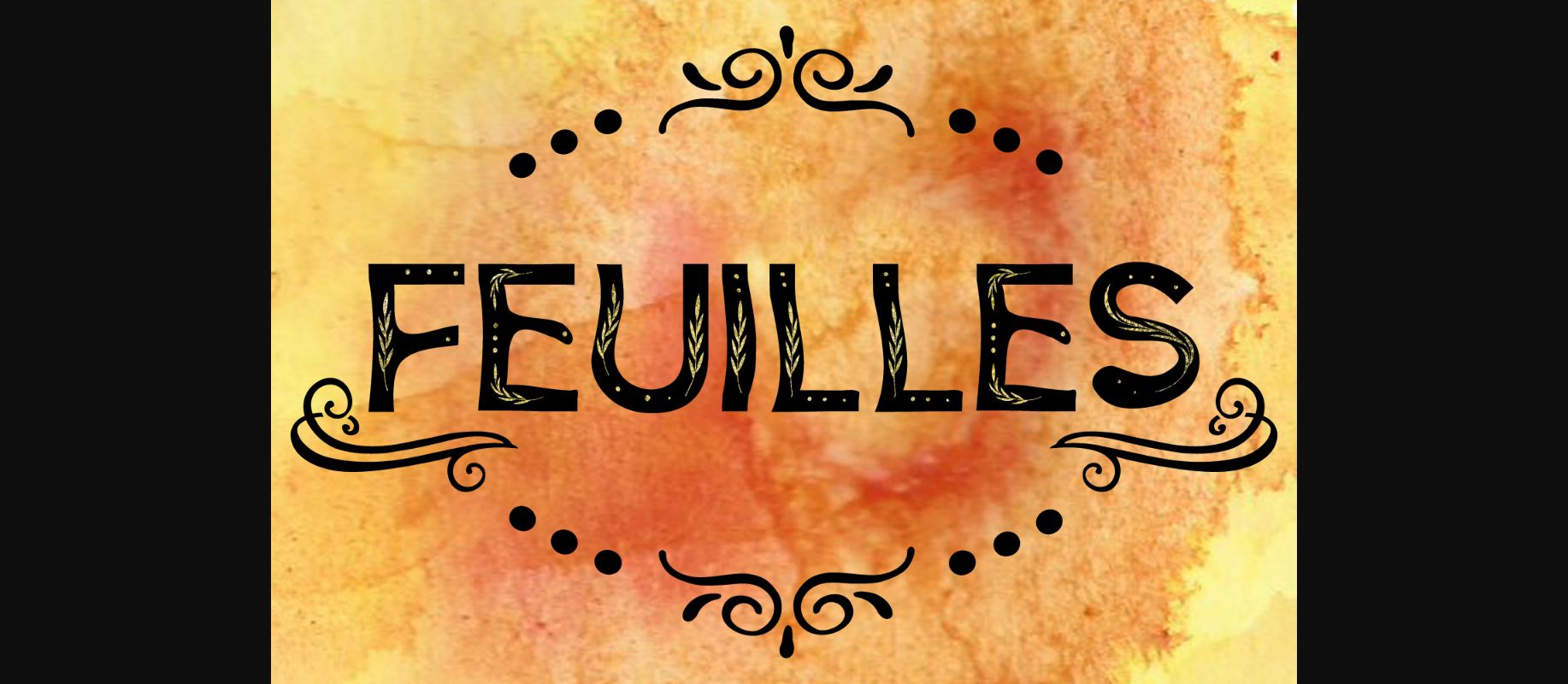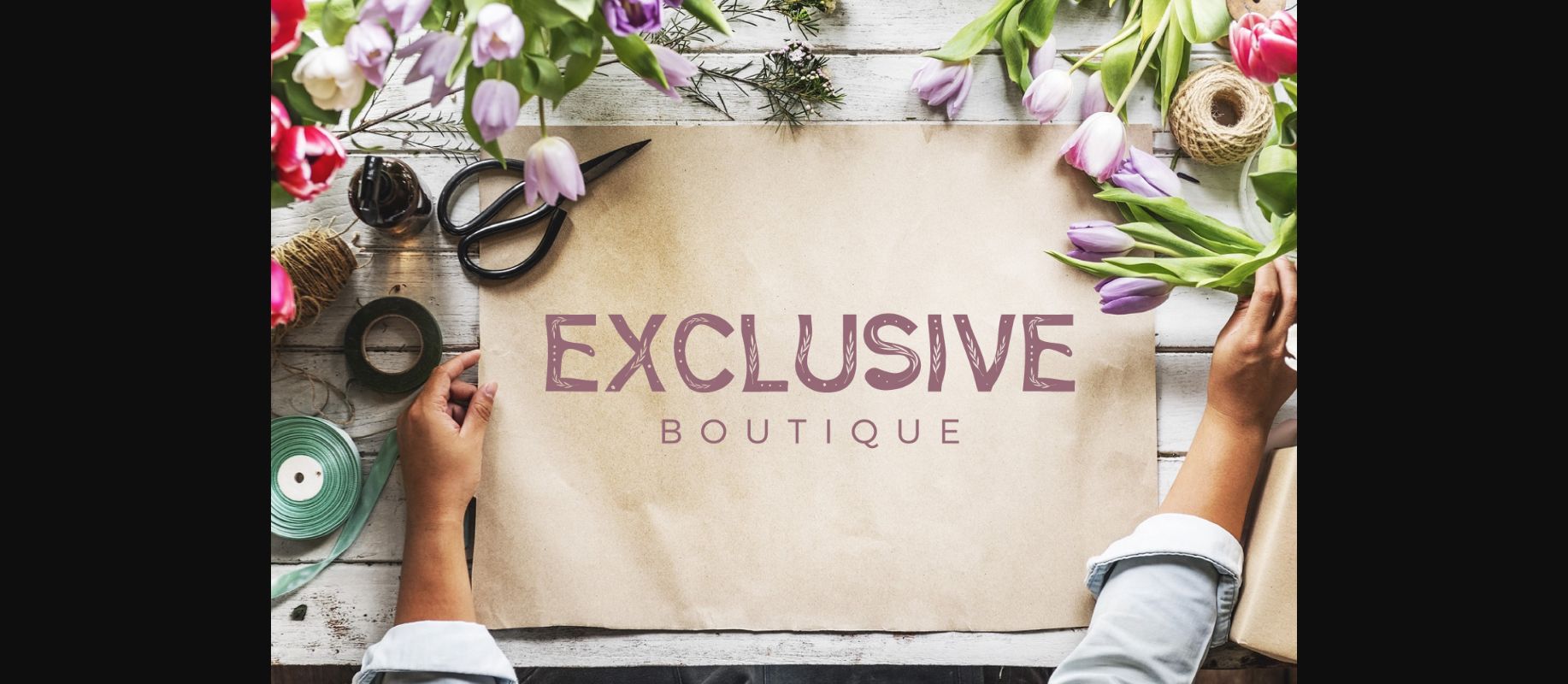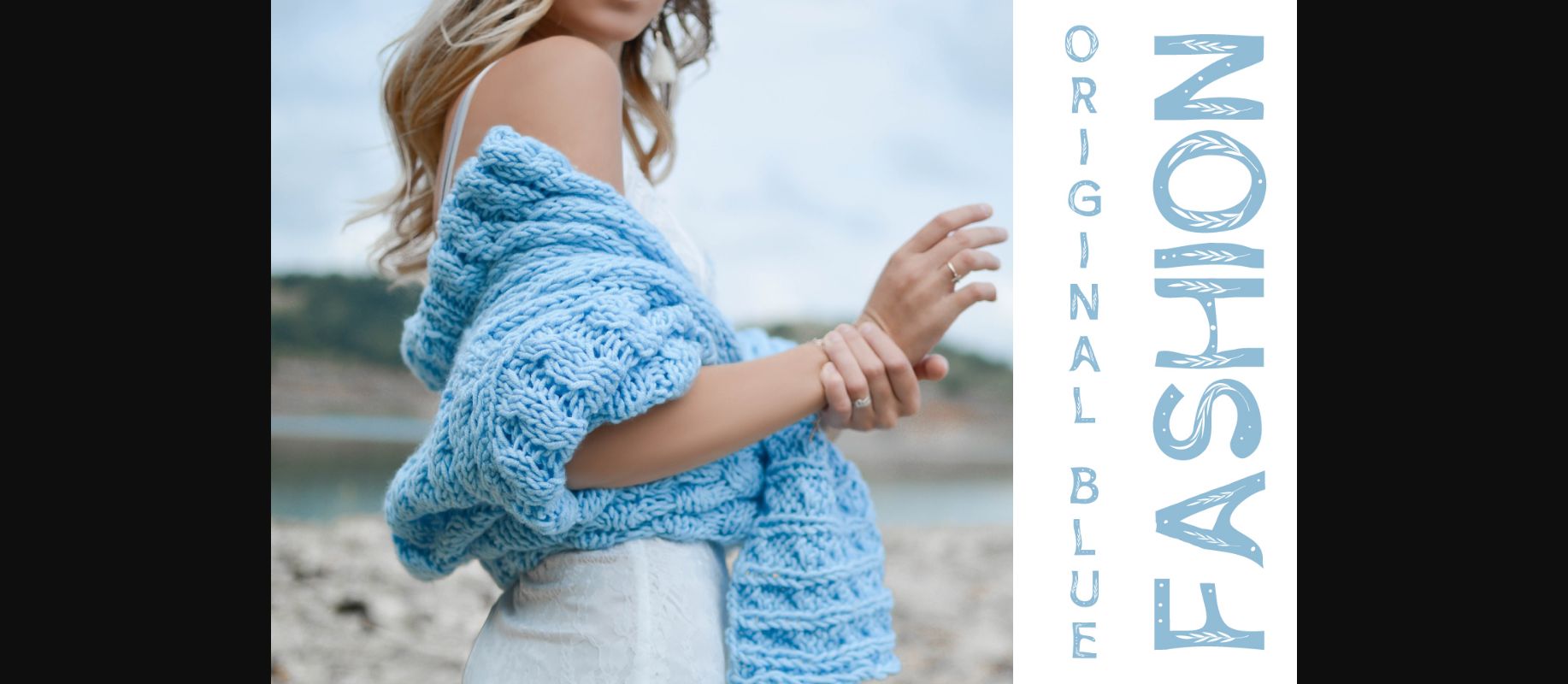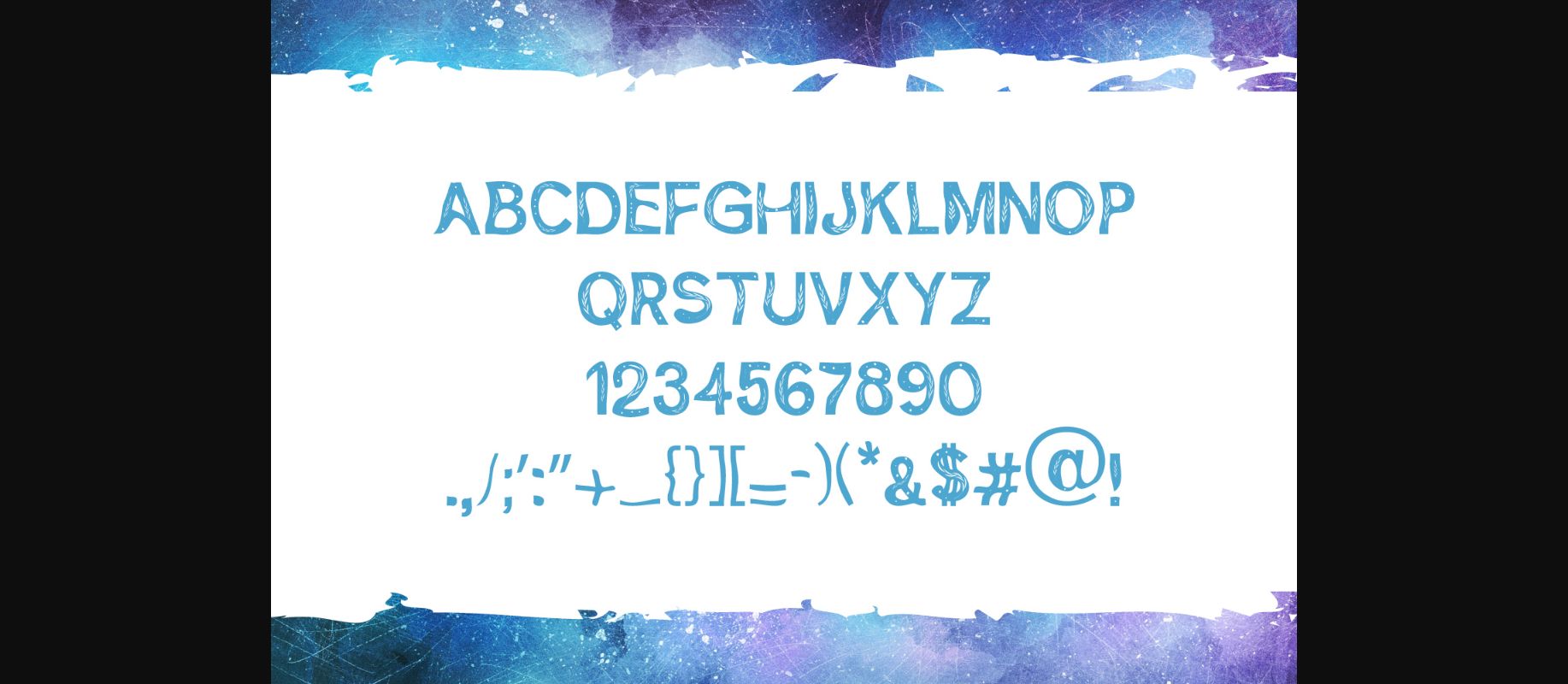
HomeDecorative FontsFeuilles Font Decorative Fonts Feuilles Font FacebookXPinterestWhatsApp 1 of 5 About Feuilles Font The stunning Feuilles font is a decorative serif that includes floral decorations, creating a luxurious look. DOWNLOAD NOW People also explored Palmiva Font Gastiella Malinka Font Rangga Script Font Januaryta Font Kind Sight Font Monthier Font Minimal Style Font Wiesbaden Font Valentine Vintage Font 604 0 TagsFeuilles Font Previous articleRosita FontNext articleCrazy Icons Font LEAVE A REPLY Cancel reply Comment: Please enter your comment! Name:* Please enter your name here Email:* You have entered an incorrect email address! Please enter your email address here Website: Save my name, email, and website in this browser for the next time I comment. Personal Use Free Deling Personal Use Free Read more about this font Boston Traffic Personal Use Free Read more about this font Arnitta Callina Personal Use Free Read more about this font Mama Personal Use Free Read more about this font BLOG The 10 Best Handwriting Fonts to Add Personality to Your Designs 10 of the Best Handwriting Fonts for Adding Personality to Your Designs There will undoubtedly be no other better choice than handwriting fonts to give... Modern Sans-Serif Fonts That Brands Love in 2025 Best Fonts for T-Shirt Design – Top 2025 Picks How to Install and Use Fonts on Windows, macOS, and Web Projects